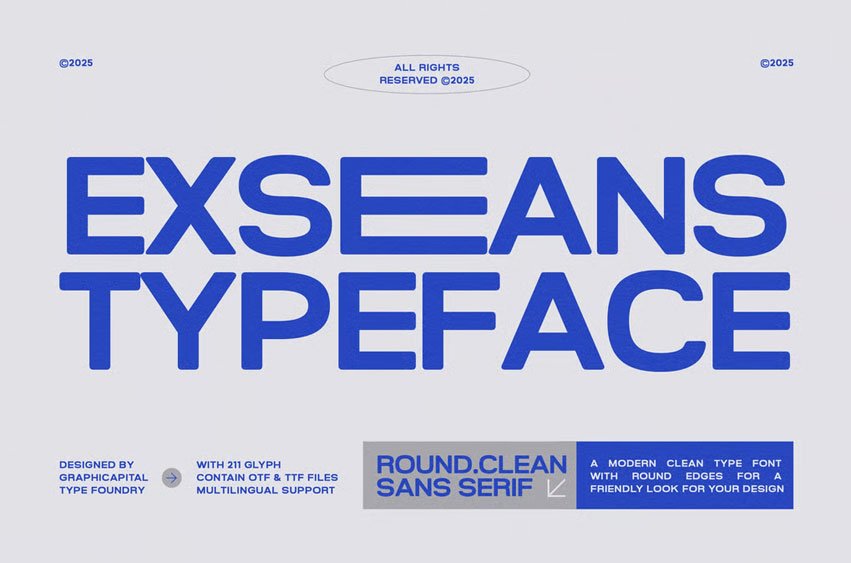
Exseans Font is a stretch-expanded sans-serif font that combines simplicity with bold, rounded forms.
Perfect for posters, headlines, packaging, and clean modern design compositions.
Ideal for branding, posters, headlines, packaging, album art, game visuals, and promotional designs. It adds personality to any creative project and helps your message stand out effortlessly.